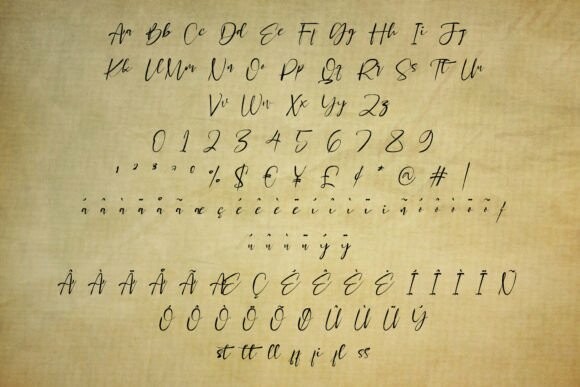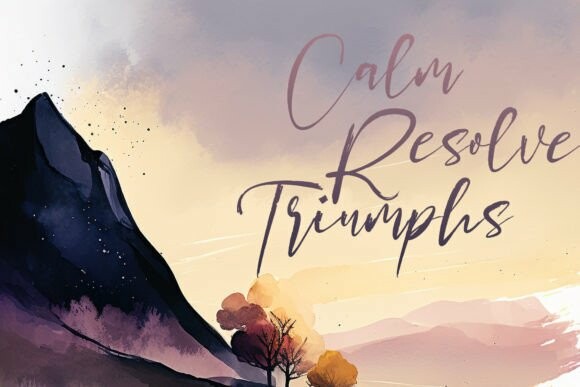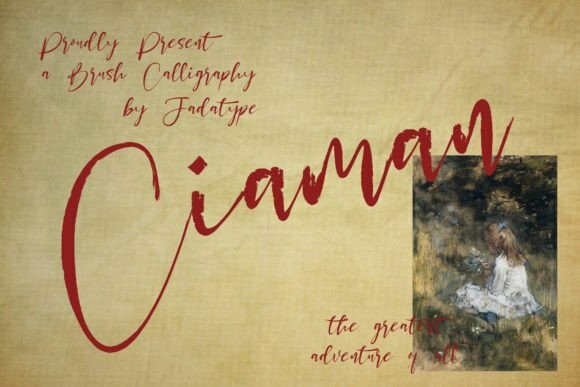
Ciaman Font
Ciaman Font, an impeccably crafted script font! Charged with timeless elegance, this unique font features a sophisticated brush finish that exudes an expressive character. Ciaman seamlessly merges creativity and elegance to deliver a font that underscores both fluidity and a strong unique identity. Don’t just write, make a statement with the Ciaman script font.